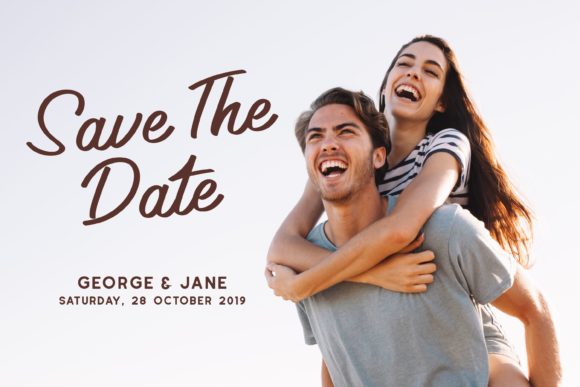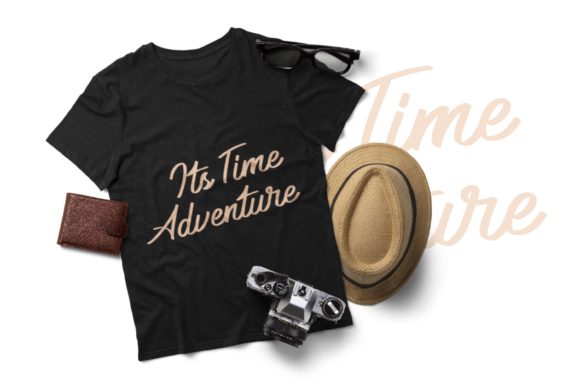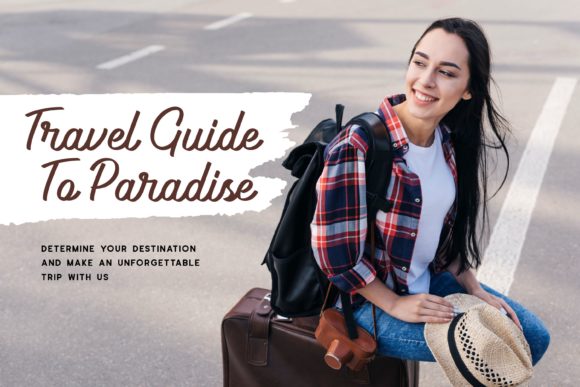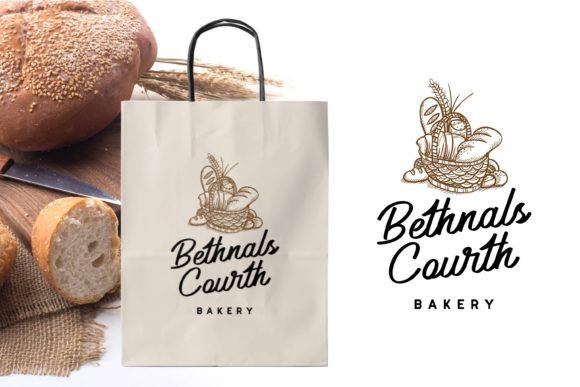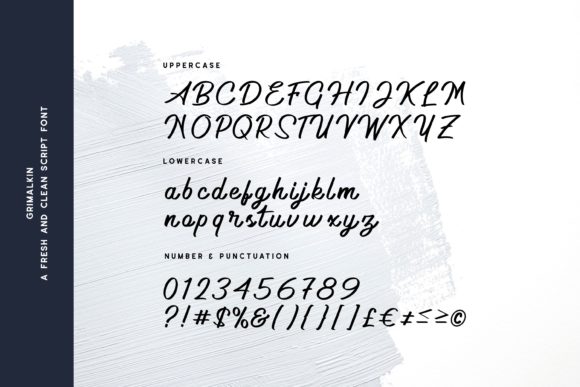
Introducing Grimalkin Font: The Perfect Addition to Your Design Arsenal
In the world of typography, fonts play a crucial role in conveying the tone and personality of a design project. For designers and crafters looking to add a touch of elegance and sophistication to their work, Grimalkin Font is an excellent choice. This modern script font is designed to bring a personalized appearance to any design project, making it stand out from the crowd.
What is Grimalkin Font?
Grimalkin Font is a modern script font that boasts a unique and stylish appearance. Its elegant lines and curves make it perfect for a wide range of design projects, from wedding invitations and branding materials to social media graphics and digital art. With its sophisticated look and feel, Grimalkin Font is sure to elevate your designs to the next level.
Key Features of Grimalkin Font
So, what makes Grimalkin Font so special? Here are some of its key features:
- Modern Script Style: Grimalkin Font features a modern script style that is both elegant and sophisticated.
- Personalized Appearance: This font is designed to bring a personalized touch to your design projects, making them stand out from the crowd.
- Highly Versatile: Grimalkin Font can be used for a wide range of design projects, from print materials to digital graphics.
- Easy to Read: Despite its elegant appearance, Grimalkin Font is highly legible and easy to read, making it perfect for body text and headlines.
Use Cases for Grimalkin Font
Grimalkin Font is an incredibly versatile font that can be used for a wide range of design projects. Here are some use cases to get you started:
- Wedding Invitations: Add a touch of elegance to your wedding invitations with Grimalkin Font.
- Branding Materials: Use Grimalkin Font to create sophisticated branding materials, such as logos, business cards, and letterheads.
- Social Media Graphics: Elevate your social media graphics with Grimalkin Font, perfect for creating eye-catching posts and stories.
- Digital Art: Grimalkin Font is also perfect for digital art, such as illustrations, paintings, and mixed media projects.
Tips for Using Grimalkin Font
To get the most out of Grimalkin Font, here are some tips to keep in mind:
- Use it Sparingly: While Grimalkin Font is beautiful, it’s best to use it sparingly to avoid overwhelming your design.
- Pair it with Other Fonts: Experiment with pairing Grimalkin Font with other fonts to create a unique and visually appealing combination.
- Adjust the Size and Color: Play around with the size and color of Grimalkin Font to create a customized look that suits your design.
In conclusion, Grimalkin Font is a modern script font that is sure to elevate your design projects to the next level. With its elegant appearance, versatility, and ease of use, it’s perfect for designers and crafters looking to add a touch of sophistication to their work. So why not give Grimalkin Font a try and see the difference it can make in your designs?